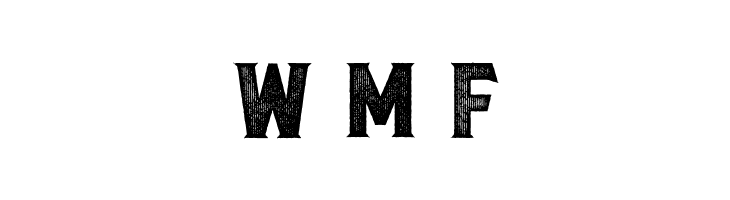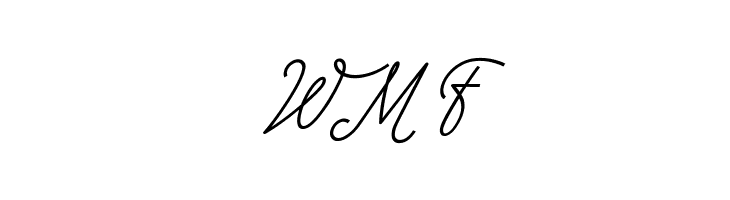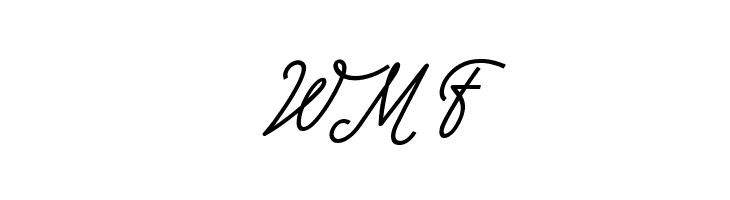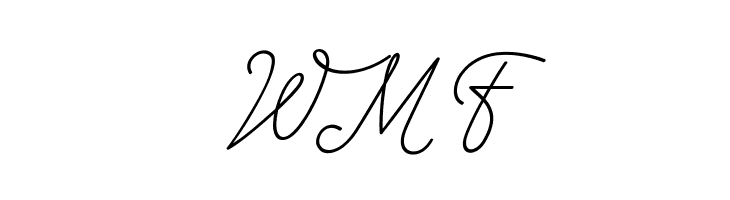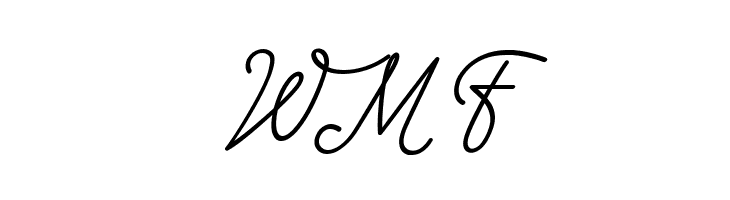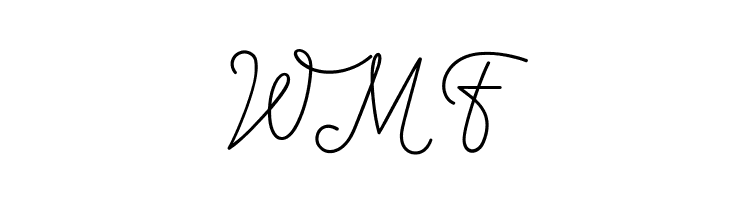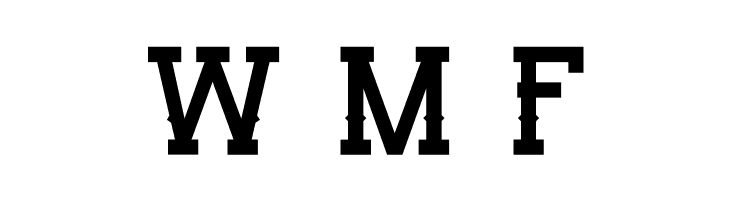
A bold, angular font with a geometric and modern style.
A bold, textured font with a rugged, vintage appearance.
A condensed, elegant script font with interconnected, flowing characters.
An elegant, flowing script font with intricate, condensed letterforms.
A bold, cursive script font with high contrast and elegant flow.
An elegant, bold script font with intricate, flowing characters.
A graceful, slanted script font with ornate uppercase and streamlined lowercase letters.
An elegant, bold italic script font with interconnected, flowing letters.
A flowing, cursive script font with elegant loops and swirls.
A bold, geometric font with a western-inspired, angular design.